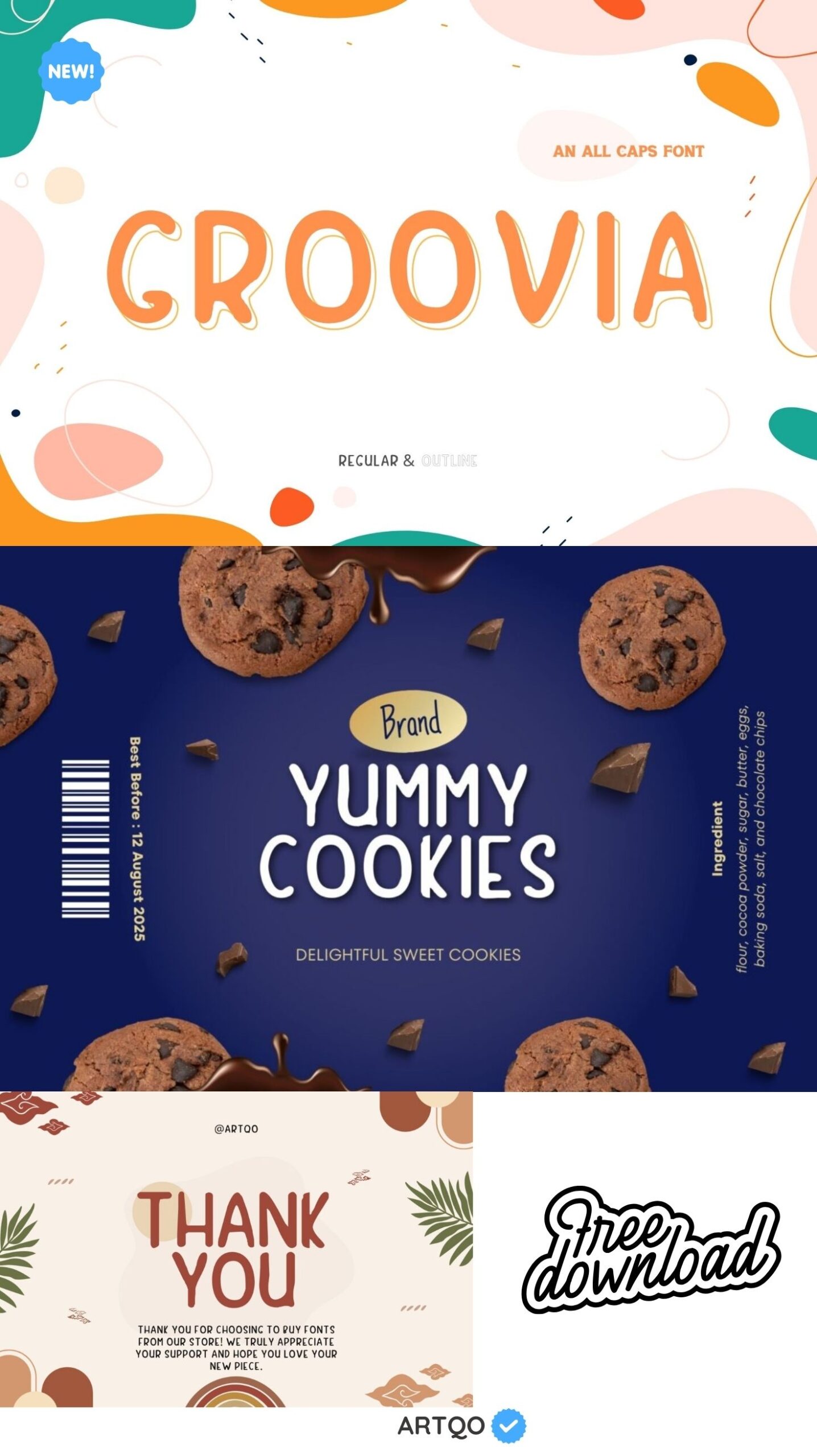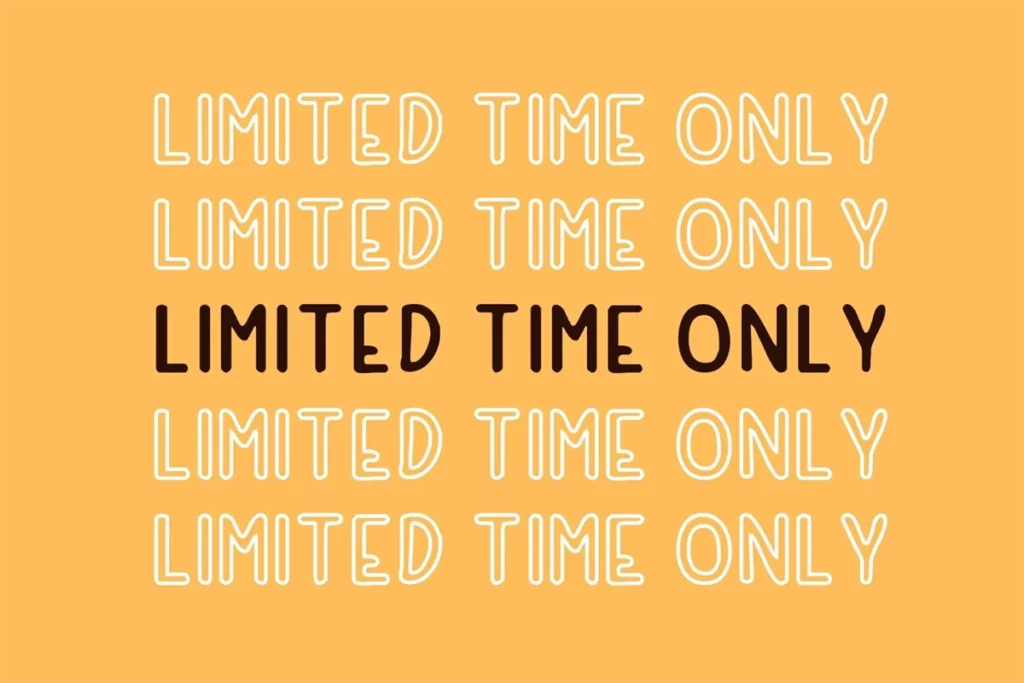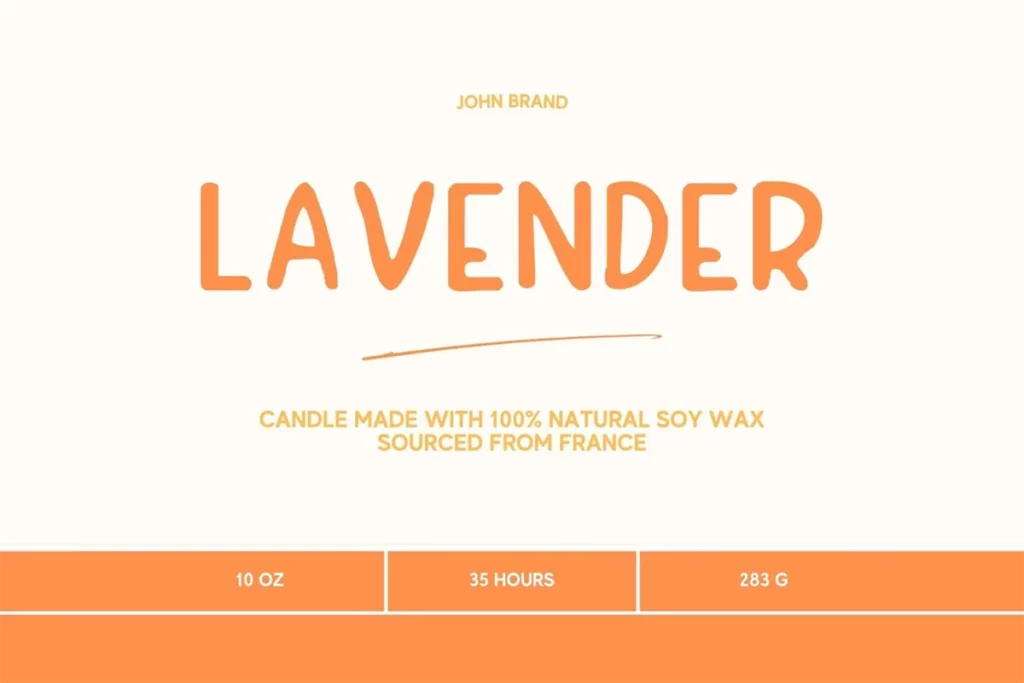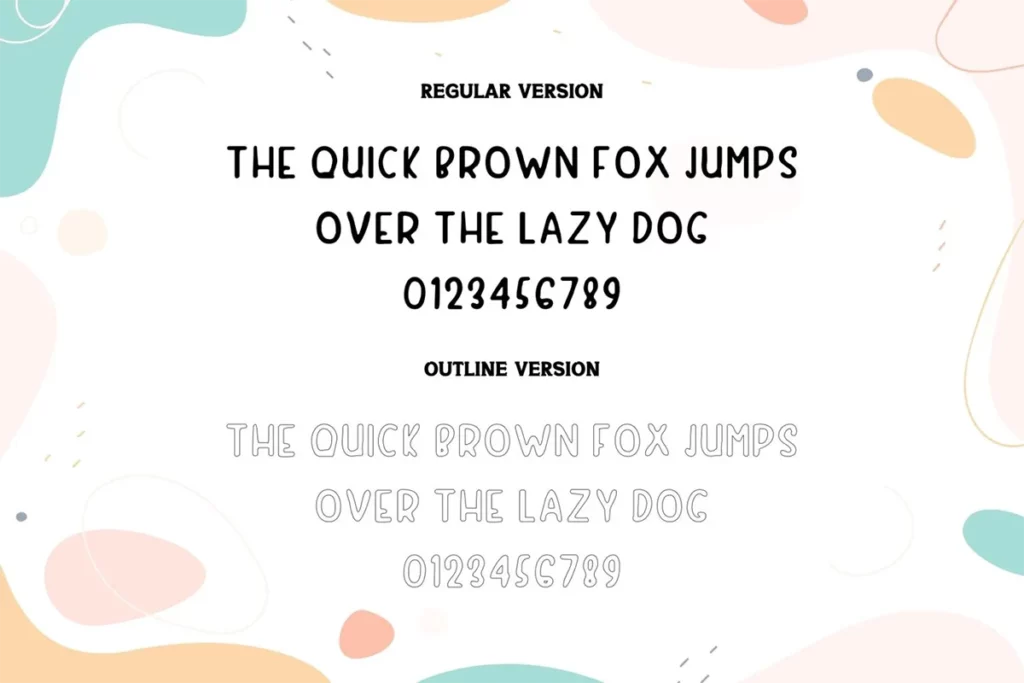
Groovia Font – An All Caps Font Duo
Introducing Groovia, an all-caps font that brings fun, creativity, and a sense of playfulness to any design. With its unique hand-drawn style, this font is ideal for branding, packaging, and creative projects where a relaxed and groovy vibe is key. The font comes in two styles: regular and outline, offering versatility to adapt to various design needs. Whether you’re creating eye-catching headlines, social media graphics, or product labels, Groovia’s rounded and wavy forms make sure your message stands out.
Groovia typeface is perfect for those who want to add a personal, approachable feel to their designs. Its hand-drawn aesthetic is ideal for informal or fun projects like food packaging, invitations, or children’s products. The font effortlessly adds a retro yet modern flair, making it great for both digital and print media.
Groovia font is a fun, hand-drawn all-caps font, perfect for branding, packaging, and playful designs. Available in regular and outline styles for versatile use.